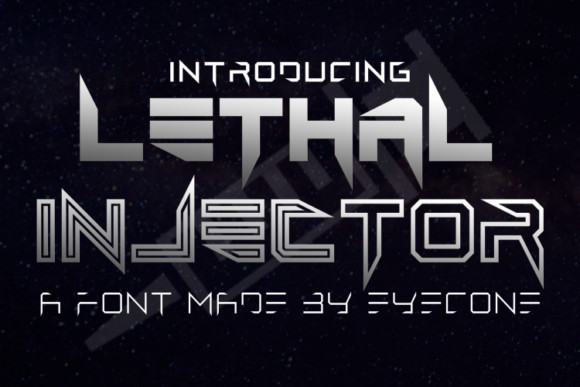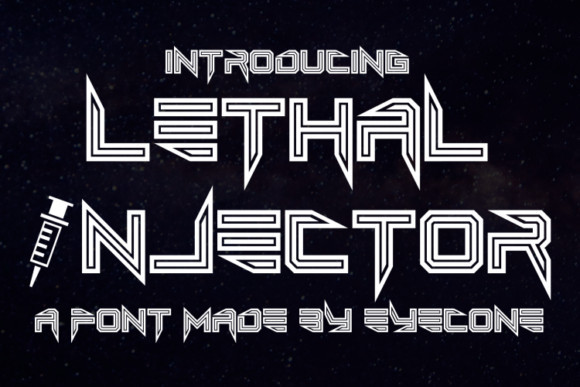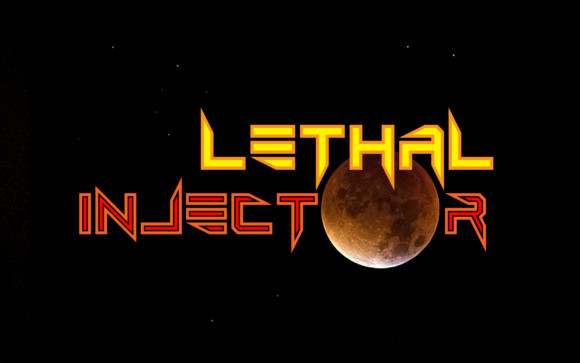
Lethal Injector Font
Lethal Injector is a decorative layered font family which comes in 10 styles. This font family will give your designs a futuristic appearance!